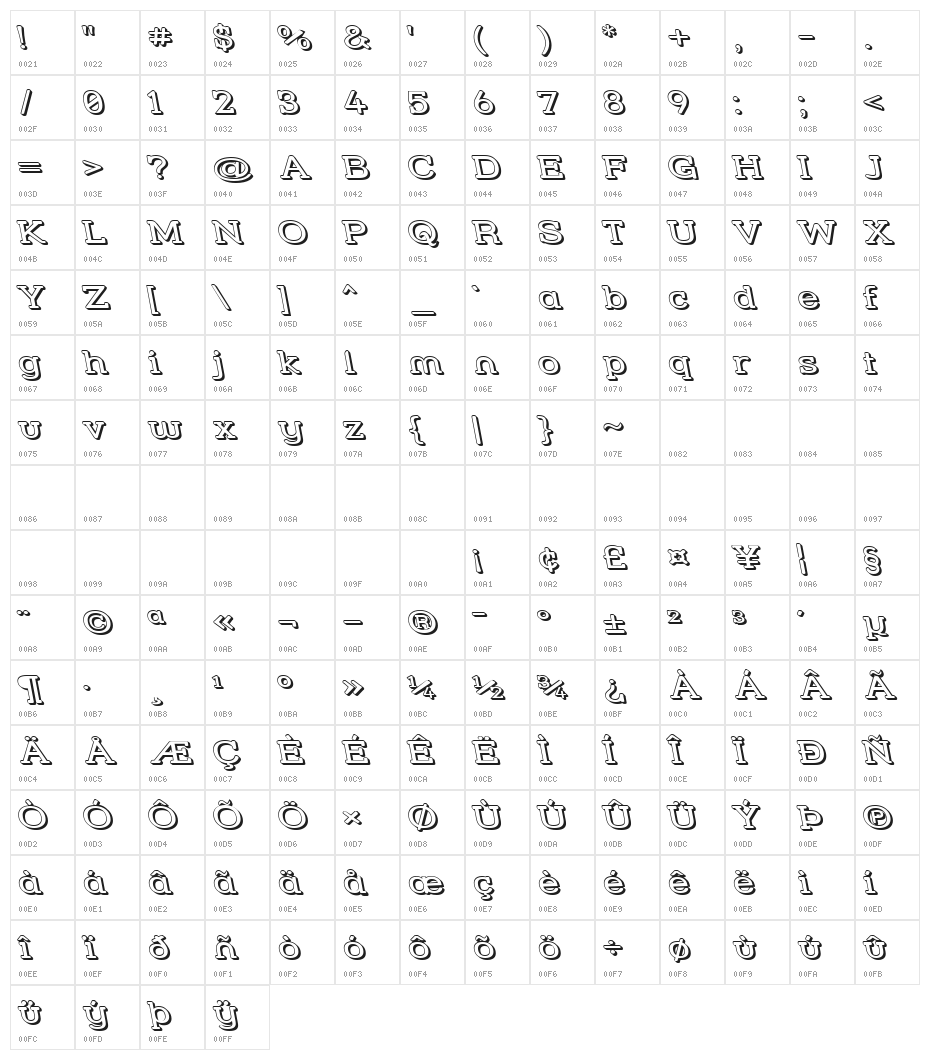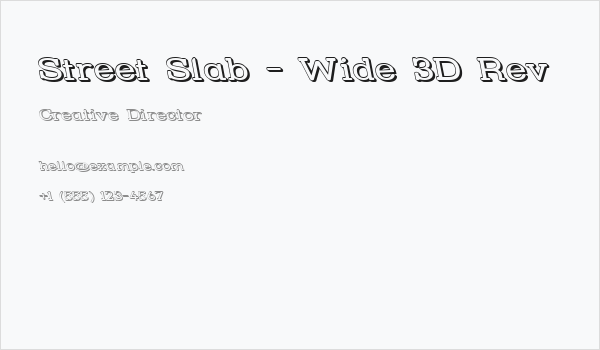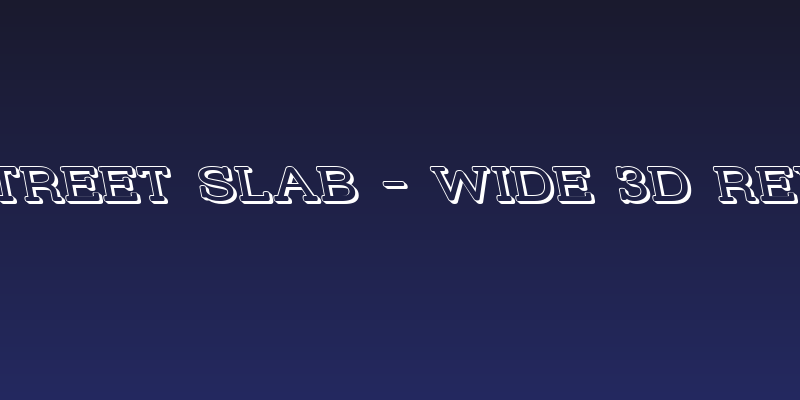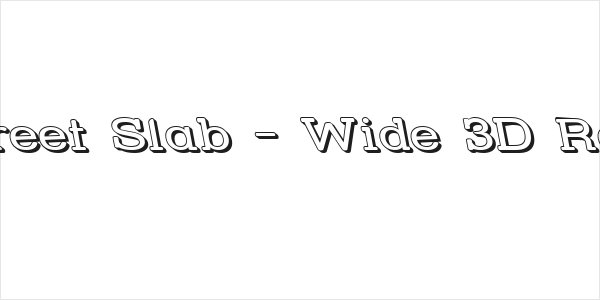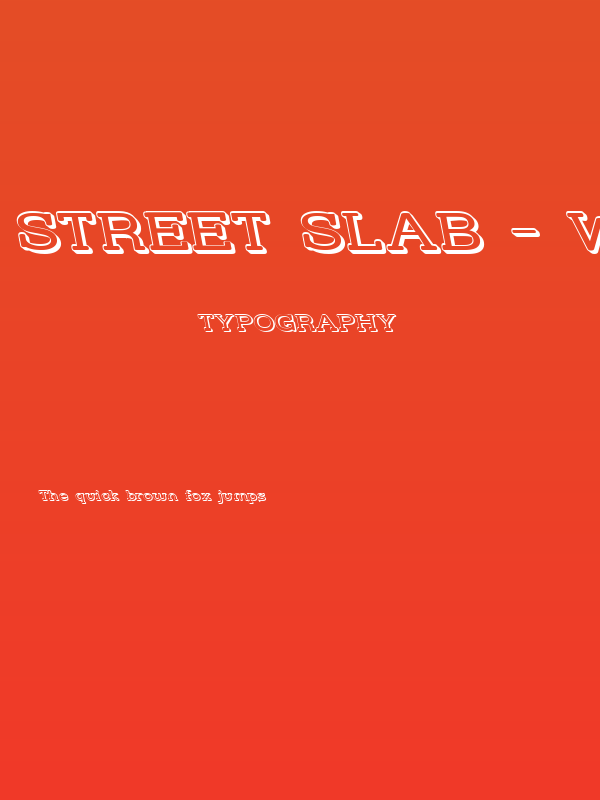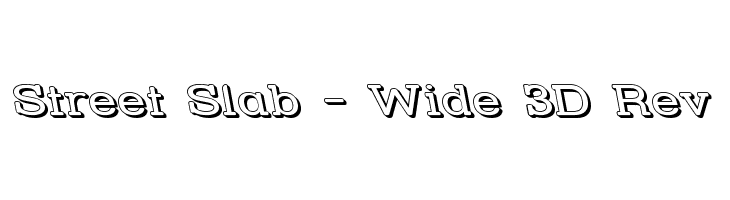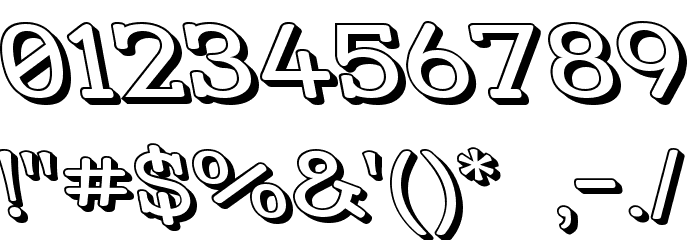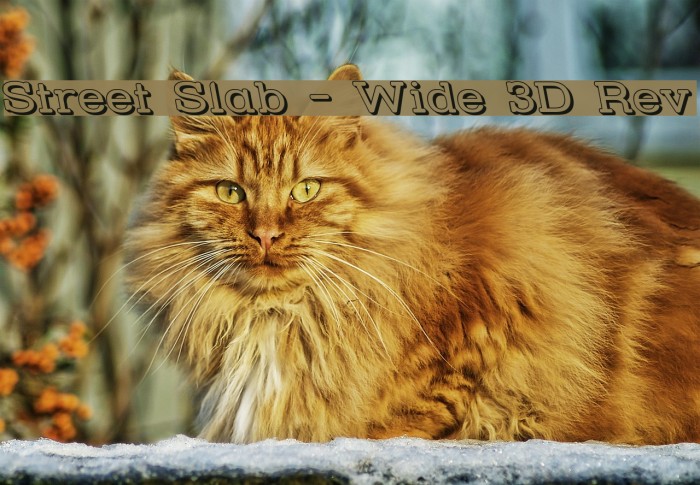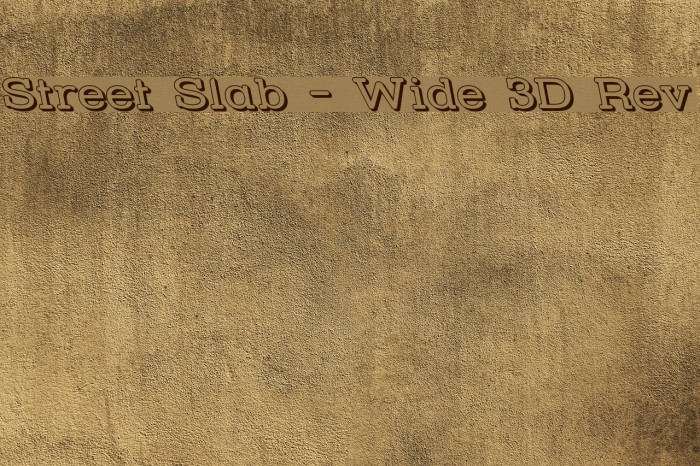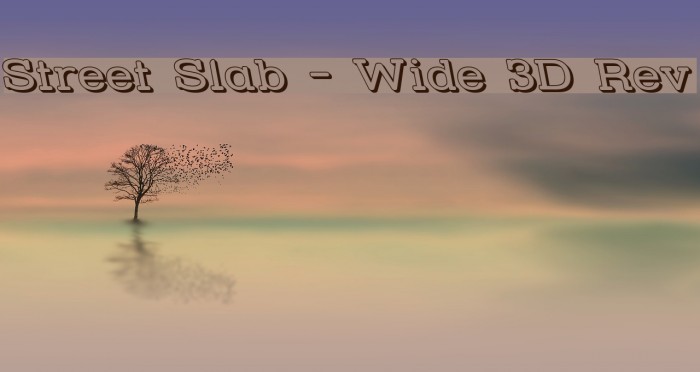
Street Slab - Wide 3D Rev Font
Street Slab - Wide 3D Rev Description
This font features a bold, three-dimensional slab serif style with a wide stance. The letters are outlined, giving a shadow effect that enhances the 3D appearance. The uppercase and lowercase characters maintain a consistent width, contributing to a balanced and structured look. The numerals and special characters are designed to match the boldness and dimensionality of the alphabet, ensuring uniformity across all glyphs. The font's playful yet robust design makes it suitable for eye-catching displays and creative projects.
| Proposed Projects | Ideal for posters, signage, branding, and any project requiring a strong visual impact. |